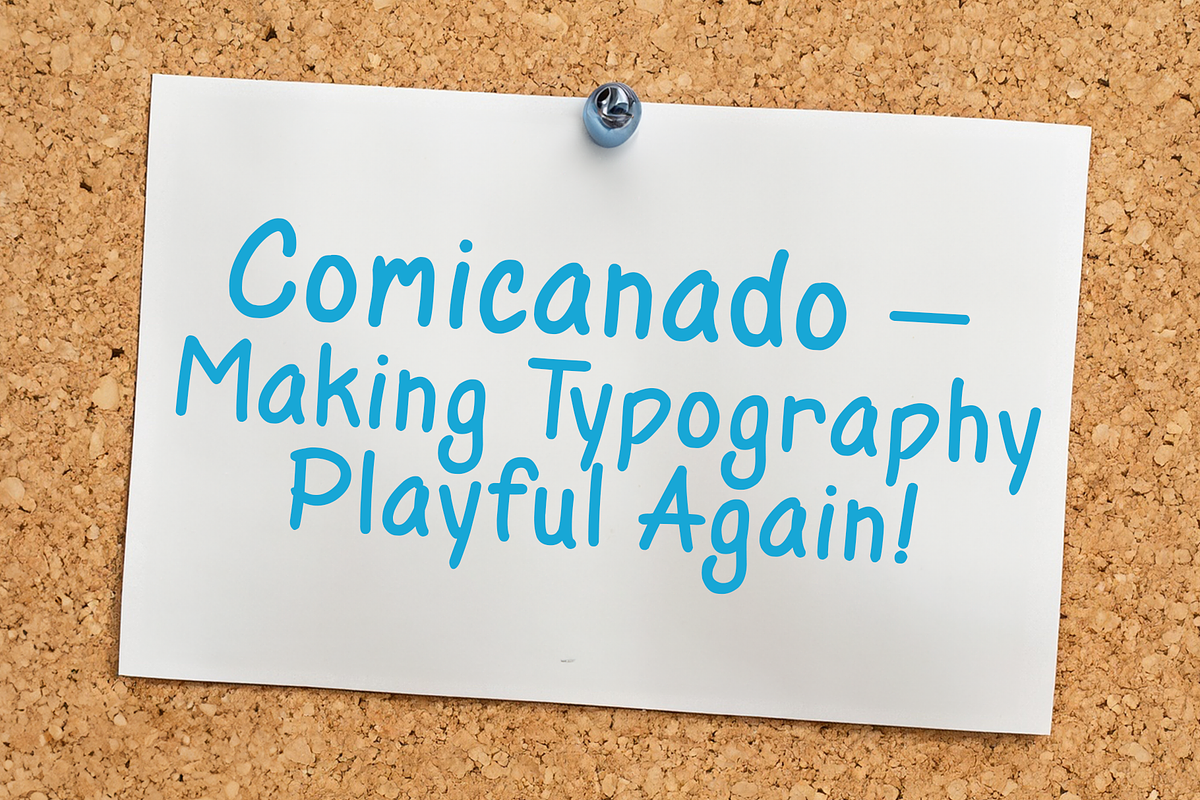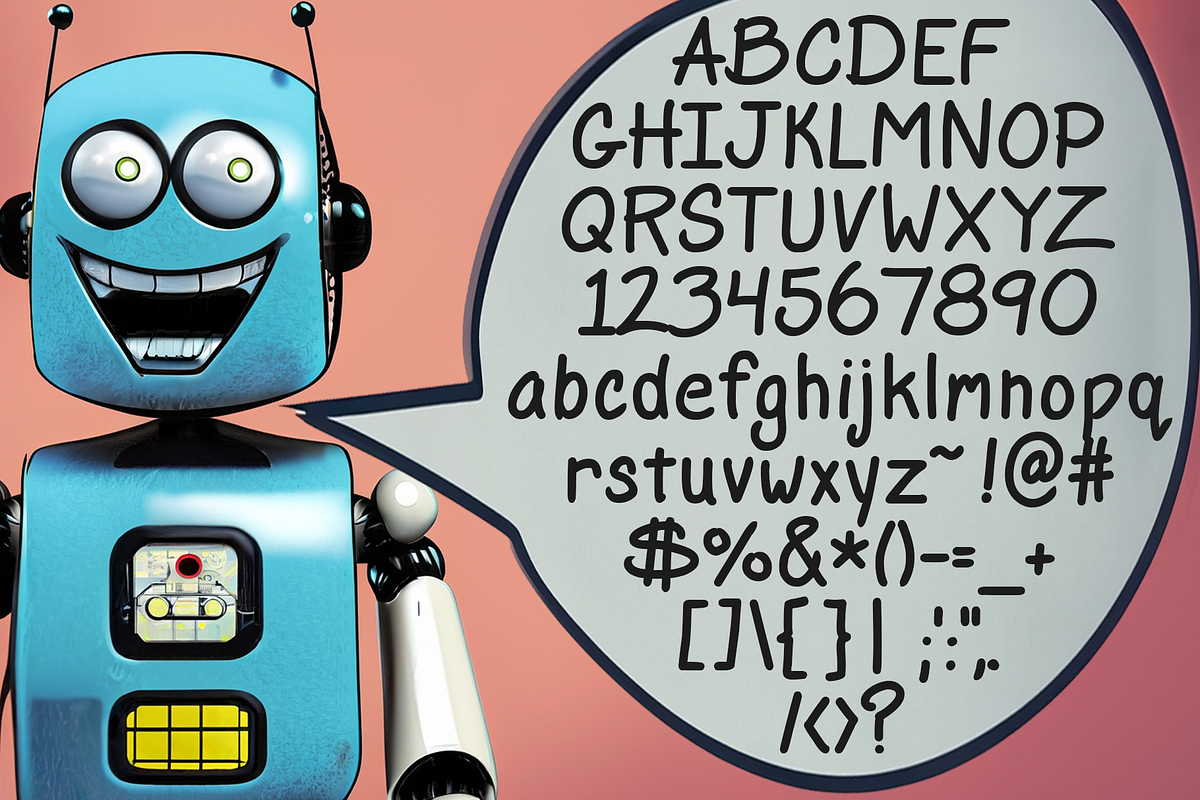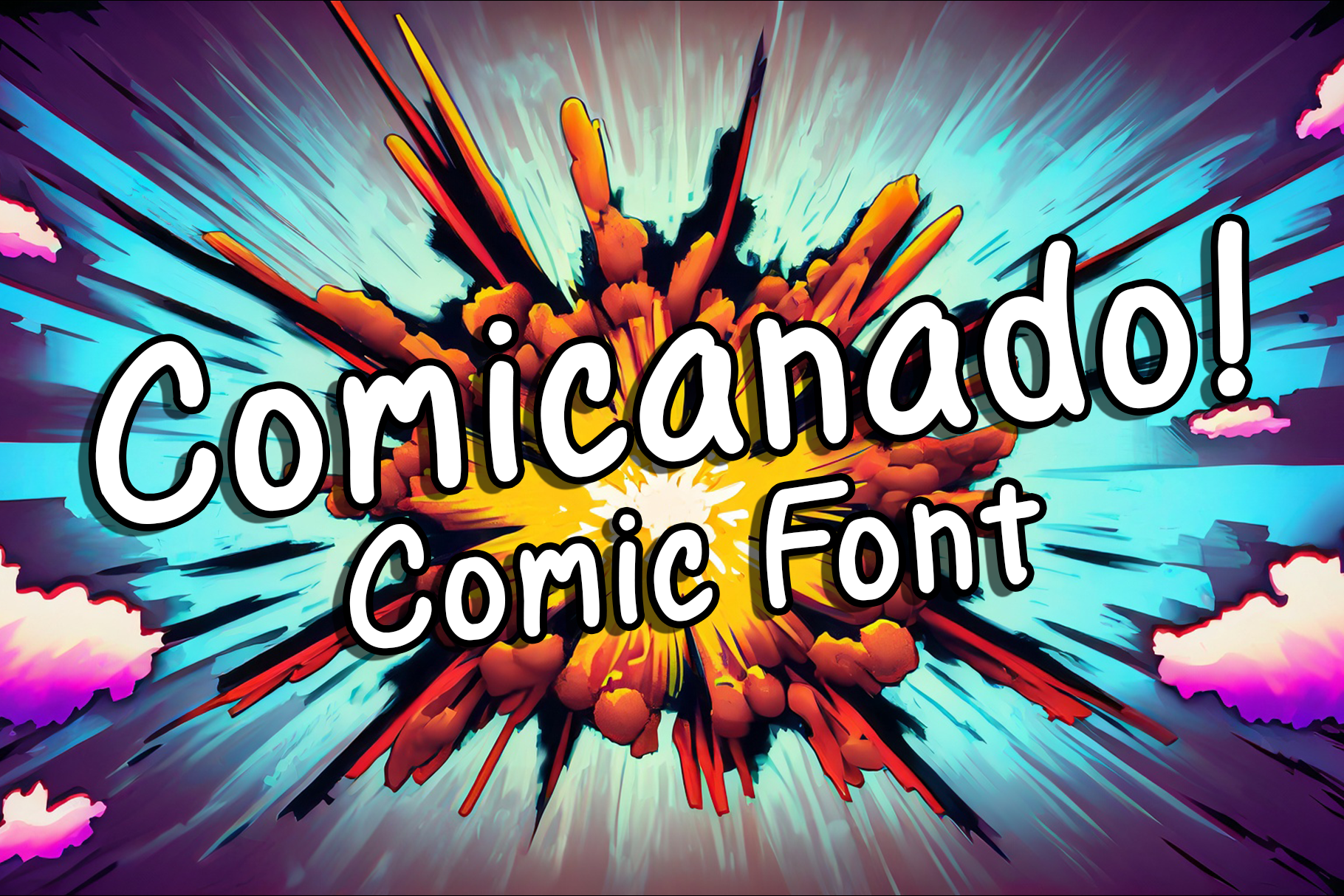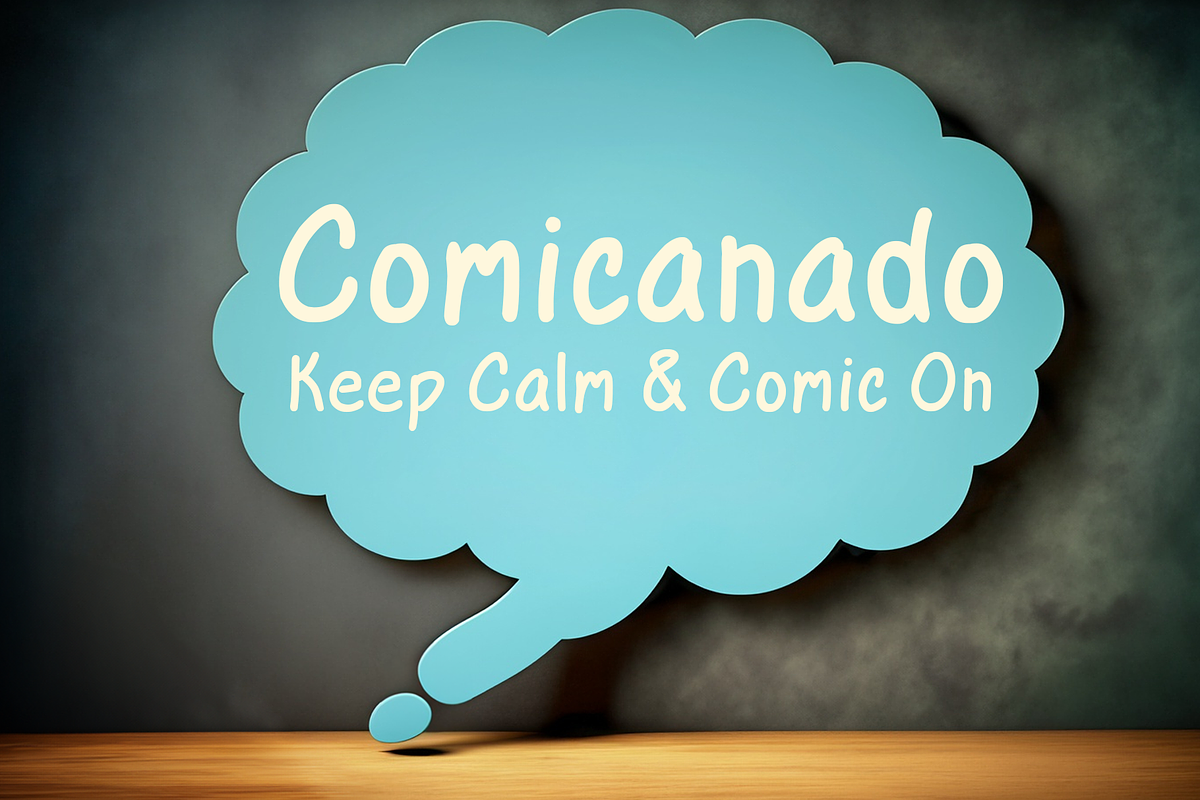
Comicanado Font
Unleash your comic creativity with Comicanado, the choice for the comic artist aficionado. Crafted with a blend of comic-inspired fun and professional finesse, Comicanado offers a versatile solution for all your comic design needs. Elevate your visuals, express your ideas, and captivate your audience like never before with the comical charm of Comicanado.